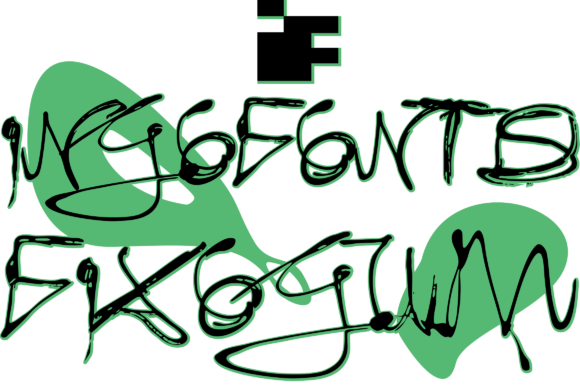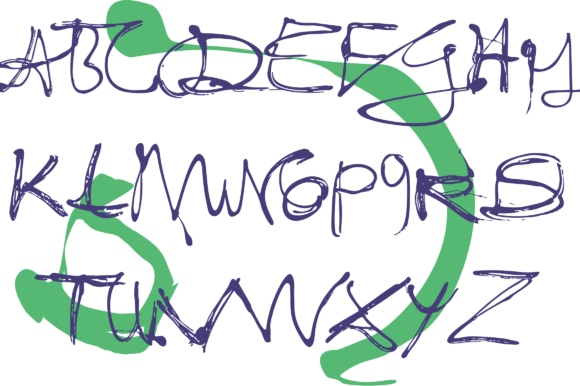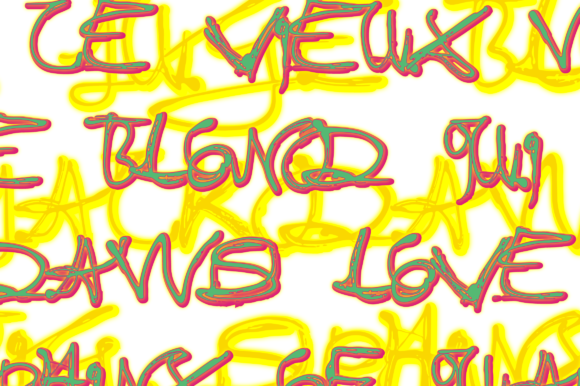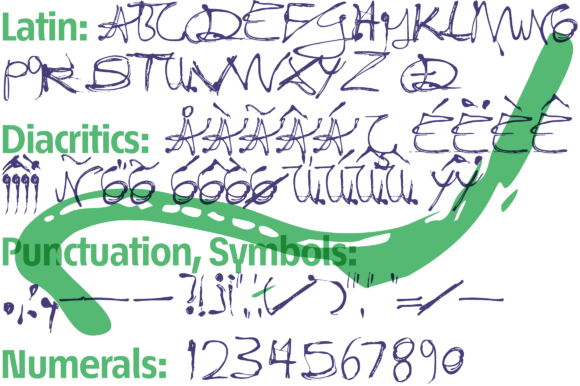
HomeScript FontsFixogum Font Script Fonts Fixogum Font FacebookXPinterestWhatsApp Fixogum Font Poster 2 Fixogum Font Poster 3 Fixogum Font Poster 4 About Fixogum Font Fixogum is a unique and bold handwritten font with a bold twist! DOWNLOAD ON CREATIVE FABRICAThis font is sold and delivered by Creative Fabrica. Font Canyon may earn a commission if you buy through this link. People also explored Wistonia Two Coffee Mug Mockup with Small Pink Flowers Culture Font Brittish State Font Slowly Font Briamitta Font Furgaski Font Byakta Font Mikayla Script Font 366 0 TagsFixogum Font Previous articleFaçade Pro FontNext articleCoretz Font LEAVE A REPLY Cancel reply Comment: Please enter your comment! Name:* Please enter your name here Email:* You have entered an incorrect email address! Please enter your email address here Website: Save my name, email, and website in this browser for the next time I comment. Personal Use Free Winter Soldier Personal Use Free Read more about this font Pattern Personal Use Free Read more about this font Delions Personal Use Free Read more about this font Arnprior Personal Use Free Read more about this font BLOG Best Fonts for YouTube Videos: Make Your Thumbnails Stand Out Best Fonts for YouTube Videos: Make Your Thumbnails Stand Out Choosing the right font can make a massive difference in how your YouTube videos perform.... Exploring Font Trends Fonts That Capture the Spirit of New York City Modern Sans-Serif Fonts That Brands Love in 2025